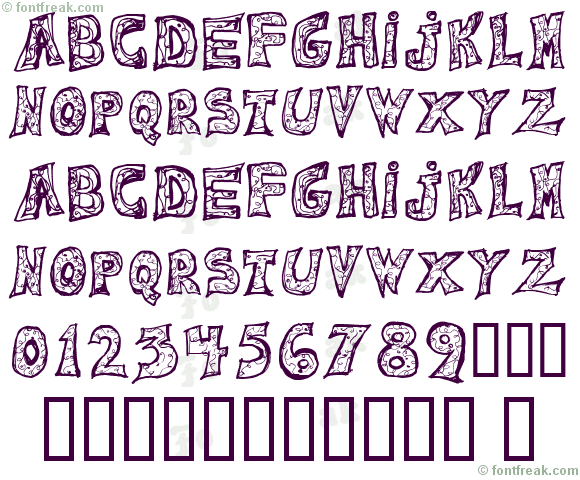
Emilie Regular
Emilie Regular by Cloutierfontes is a unique display font that captures attention with its artistic flair. This font features a playful, hand-drawn style that combines both whimsical and decorative elements, making it perfect for a variety of creative projects. The stroke weights are varied, presenting a dynamic contrast that adds character to each letterform. The spacing is intentionally loose, giving the font an airy feel that enhances readability while still maintaining its artistic integrity.
This font is particularly well-suited for wedding invitations, where its charming aesthetic can add a personal touch. It also works beautifully on movie posters, where the eye-catching design can draw viewers in. Restaurant menus can benefit from the font's unique style, making them memorable and inviting. Additionally, Emilie Regular is an excellent choice for branding materials for small businesses, especially those looking to convey a fun and approachable image. Content creators will find it useful for social media graphics that need to stand out in a crowded feed.
Target audiences for Emilie Regular include graphic designers seeking distinctive typefaces for their projects, small business owners wanting to establish a unique brand identity, and content creators looking to add a special touch to their visual communications. The font's freeware license makes it accessible for anyone eager to incorporate an artistic element into their work without a financial commitment.